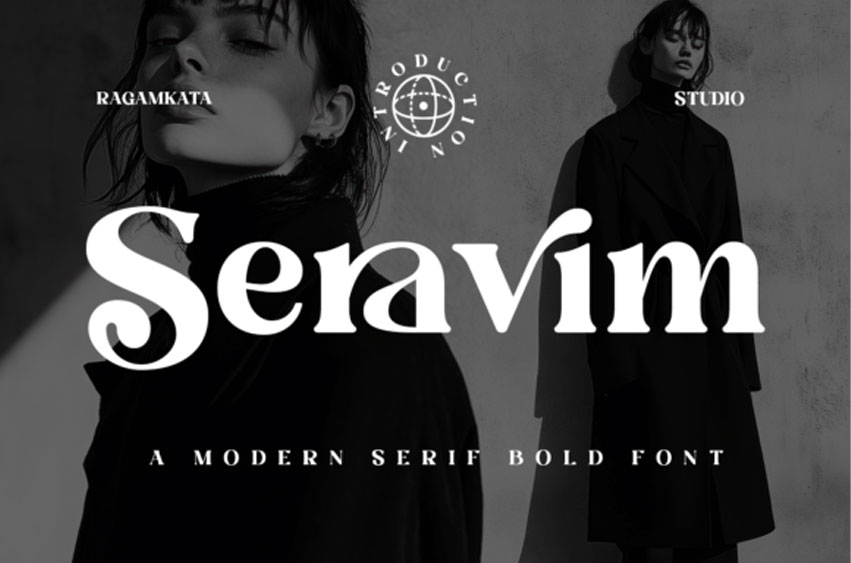
Seravim Regular Font
Seravim Regular Font is a modern, bold serif font that evokes the nostalgic charm of vintage advertisements and retro computer aesthetics. With its strong presence and refined details, Seravim is your go-to typeface for capturing that authentic retro look while preserving a polished, contemporary edge.
Whether you’re crafting bold typographic compositions or building standout digital content, this font brings timeless character and clarity to your creative work.
Designed with care to meet the demands of creative professionals, Seravim is perfect for branding, posters, packaging, editorial headlines, and web use—anywhere a vintage feel meets modern sophistication.
Let Seravim elevate your next project with bold nostalgia and timeless style.